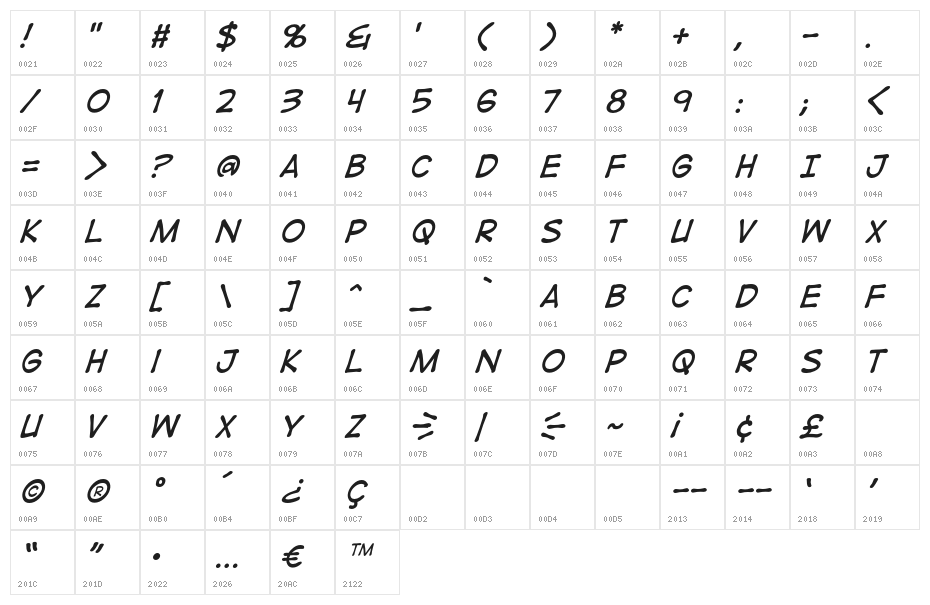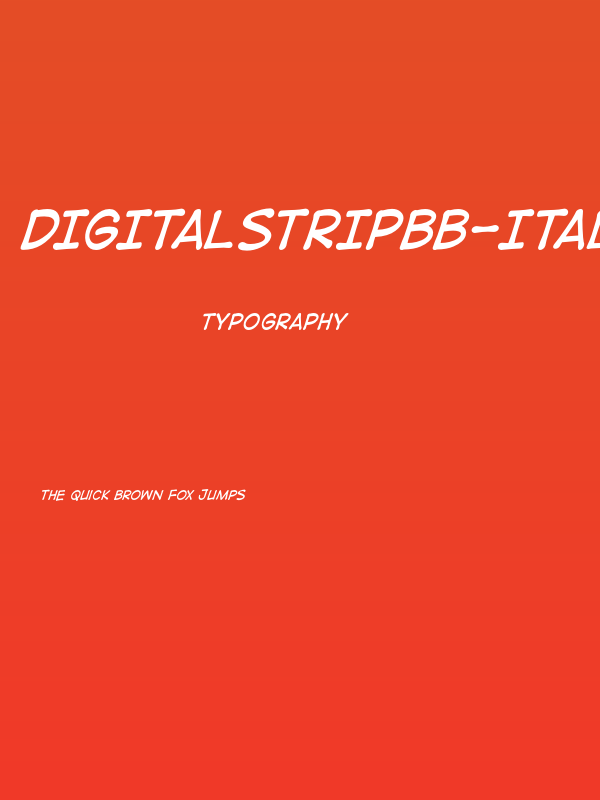
DigitalStripBB-Italic Font
DigitalStripBB-Italic Description
This font features a playful and dynamic script style with a consistent slant, giving it an italic appearance. The characters are bold and rounded, with a smooth flow that mimics handwriting. The uppercase and lowercase letters maintain a uniform height, contributing to a cohesive look. The numbers and special characters are designed to match the overall style, ensuring versatility across different uses. The font's energetic and informal nature makes it suitable for creative projects.
| Overall Style | Playful, Casual |
| Use Case | Logos, Headlines, Informal Text |
| Proposed Projects | Ideal for comic strips, playful branding, children's books, and casual invitations. |